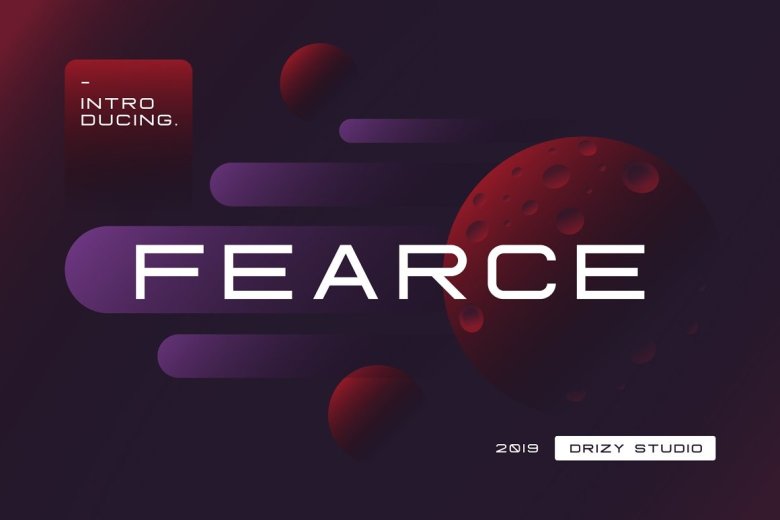
Fearce Font
Introducing Fearce! a new sans serif font from drizy! This minimalistic and modern all-caps serif typeface . With upper case characters, numbers and punctuation. Perfect for gorgeous logos & titles, Fearce will pair cool with many fonts and work well with whatever project you’re working on.
Fearce Sans Serif Font